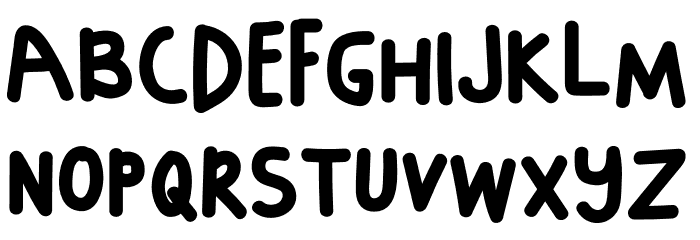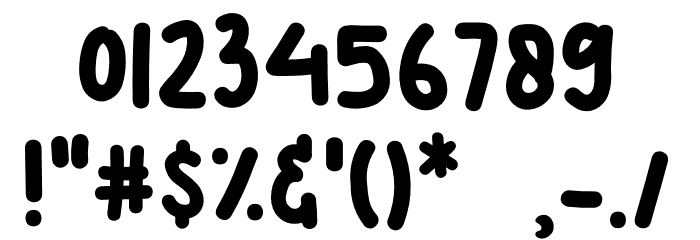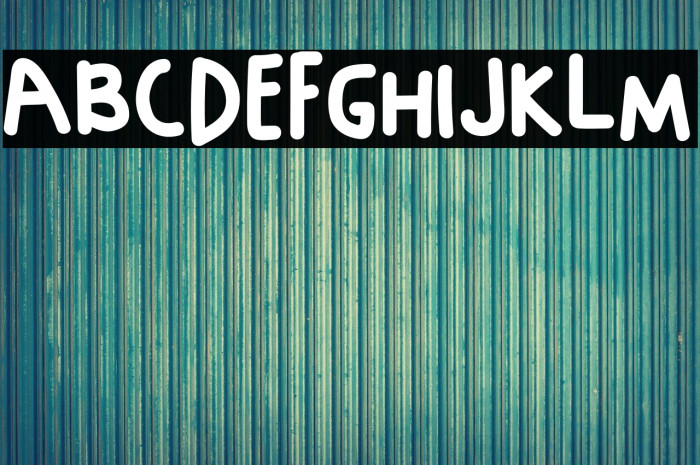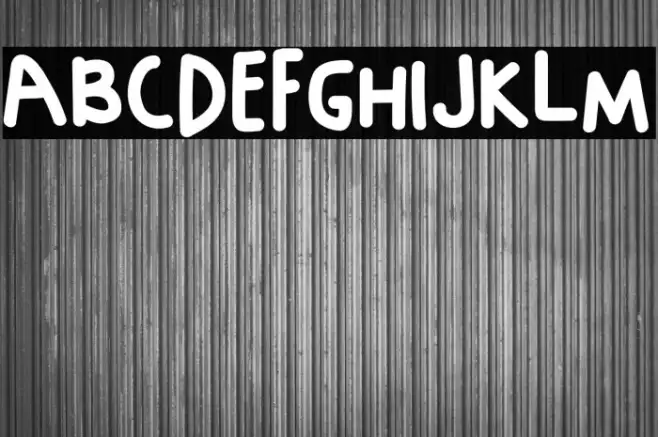
DIOMIRA Font
This font features a playful and bold style with rounded edges and a hand-drawn appearance. The characters are uniformly thick, giving it a consistent and cohesive look. The uppercase and lowercase letters maintain a similar width, contributing to its friendly and approachable feel. The numbers and special characters are designed to match the overall aesthetic, making it suitable for a variety of creative applications. Its informal style is ideal for projects that require a touch of whimsy and personality.
A playful, bold font with rounded edges and a hand-drawn look.
- Proposed Projects: Ideal for children's books, playful branding, casual invitations, and creative posters.
- Overall Style: Playful